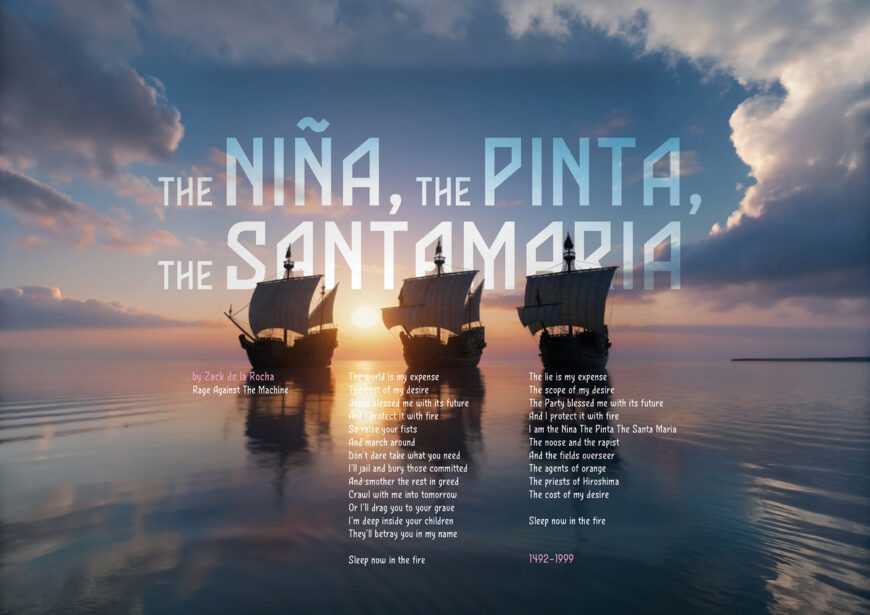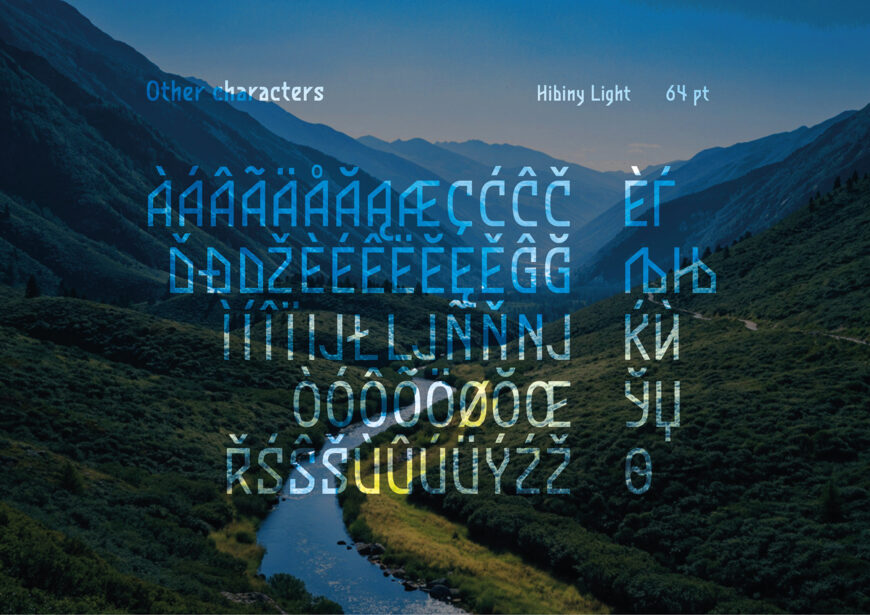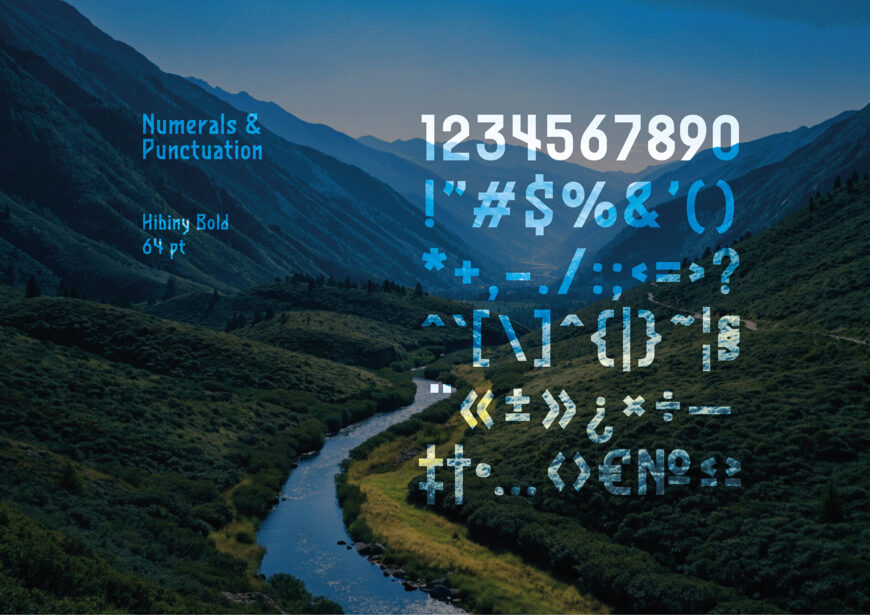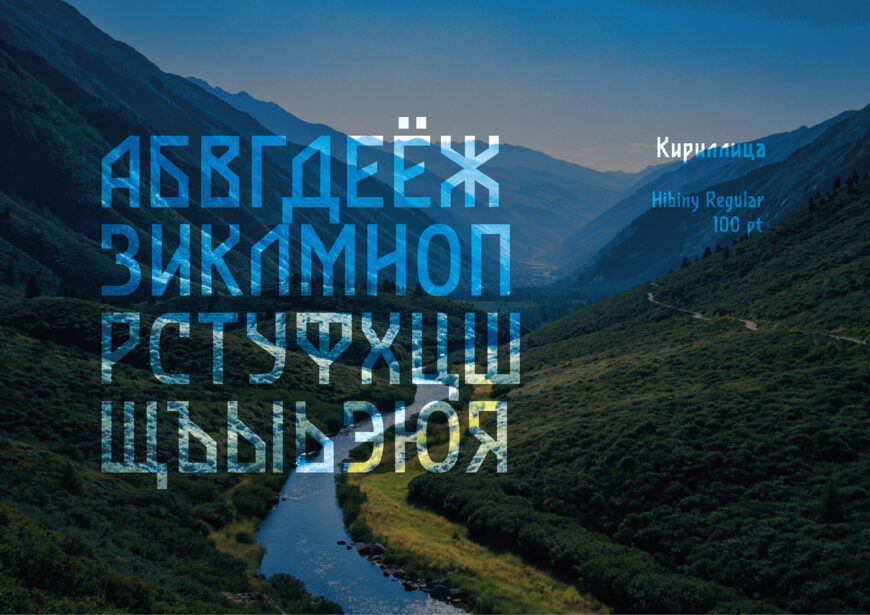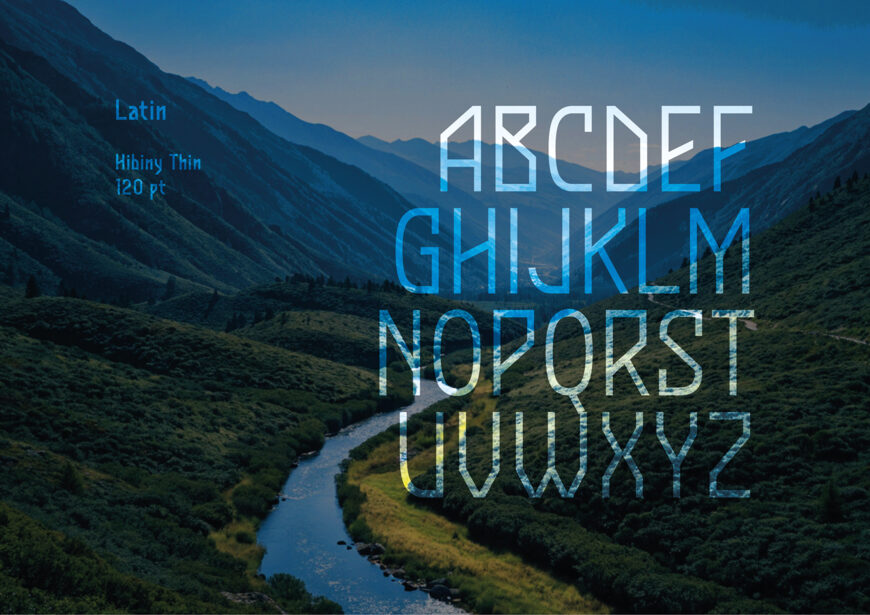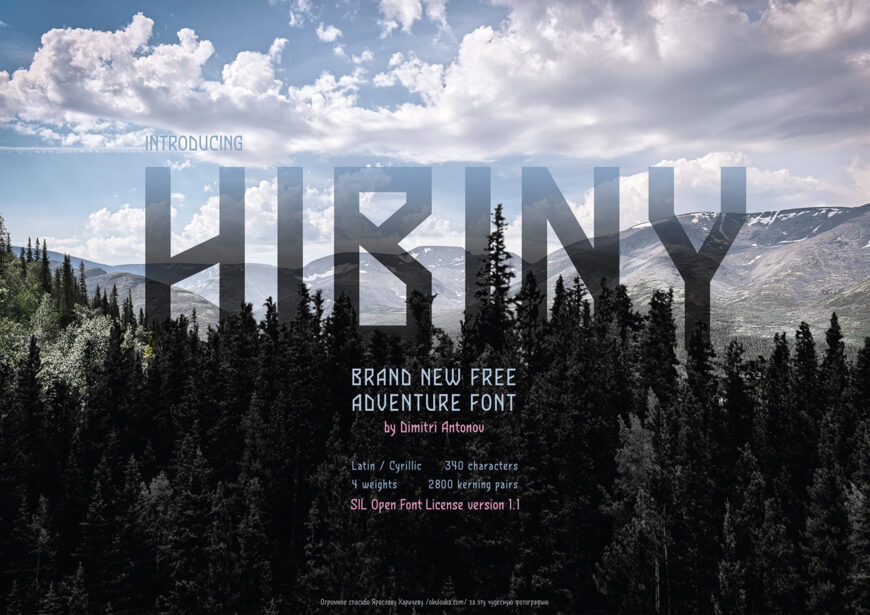
Hibiny Font Family
The Hibiny Font Family, designed by Dimitri Antonov, is a display font inspired by nature and outdoor adventures. It includes four distinct weights: Thin, Light, Regular, and Bold.
The family features full support for both Latin and Cyrillic character sets, along with standard numerals, punctuation marks, and extended diacritics. Its geometric, rugged typography makes it suitable for headlines, editorial layouts, book covers, and adventure-themed graphic design.